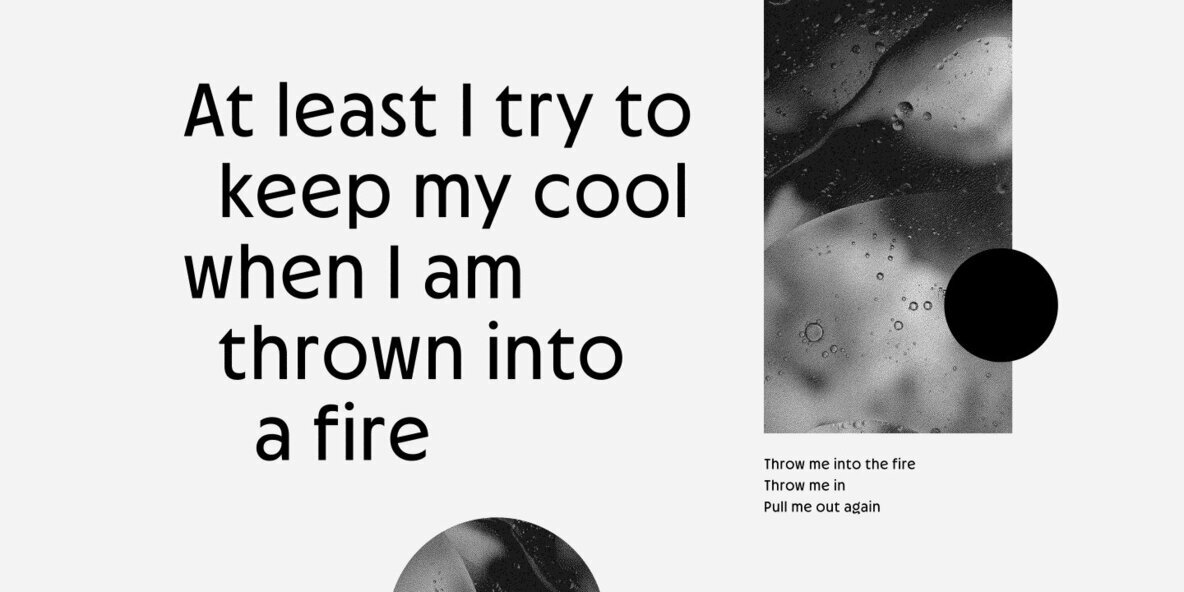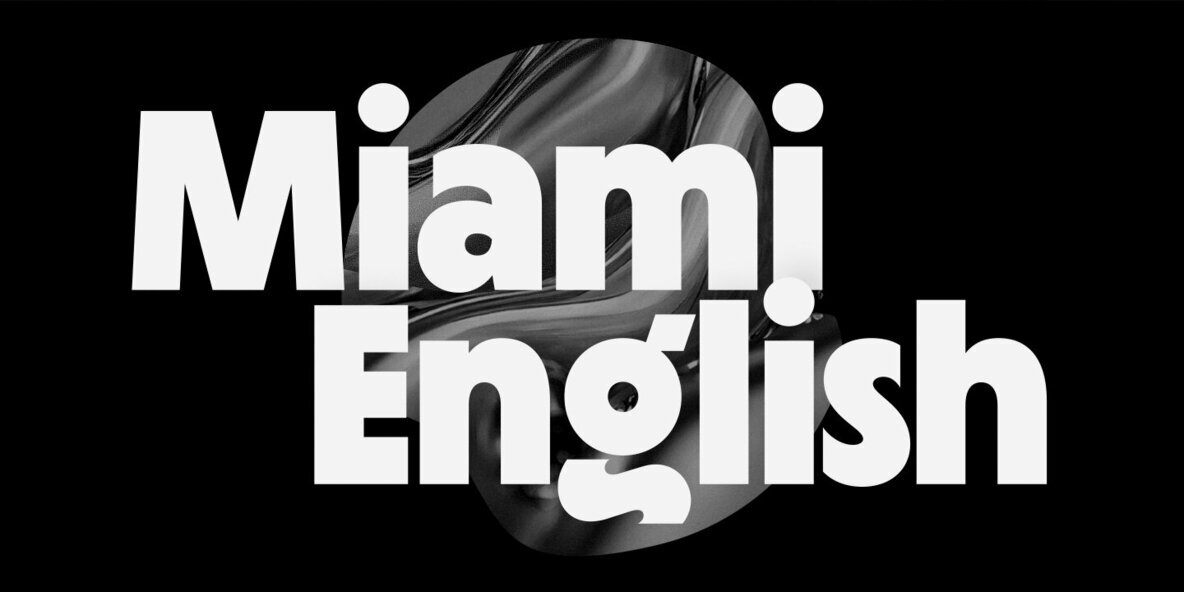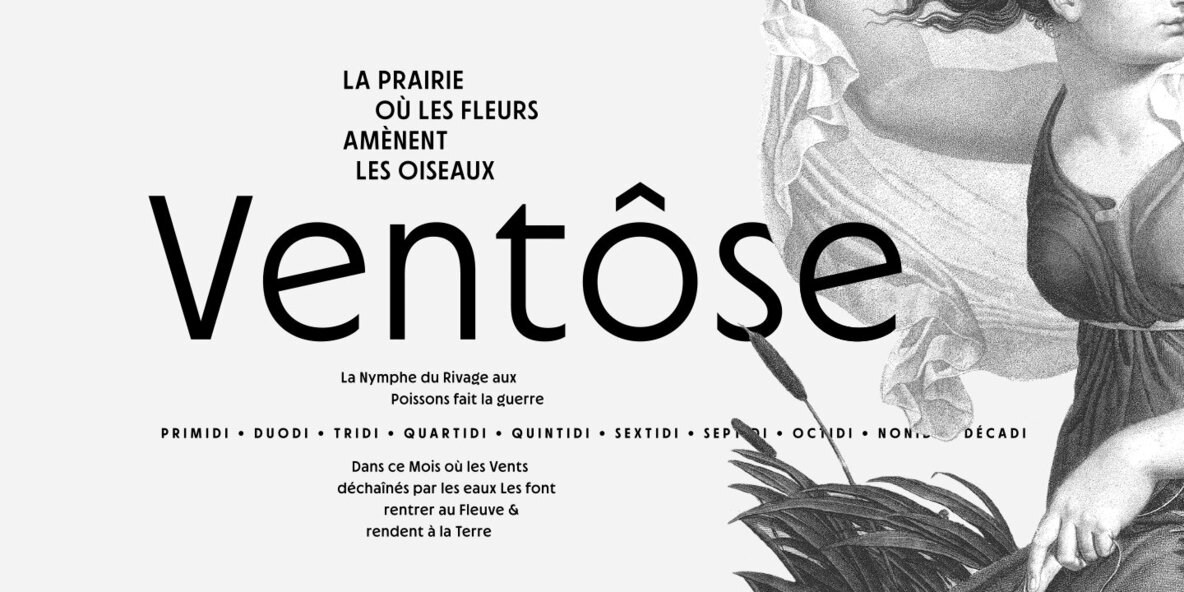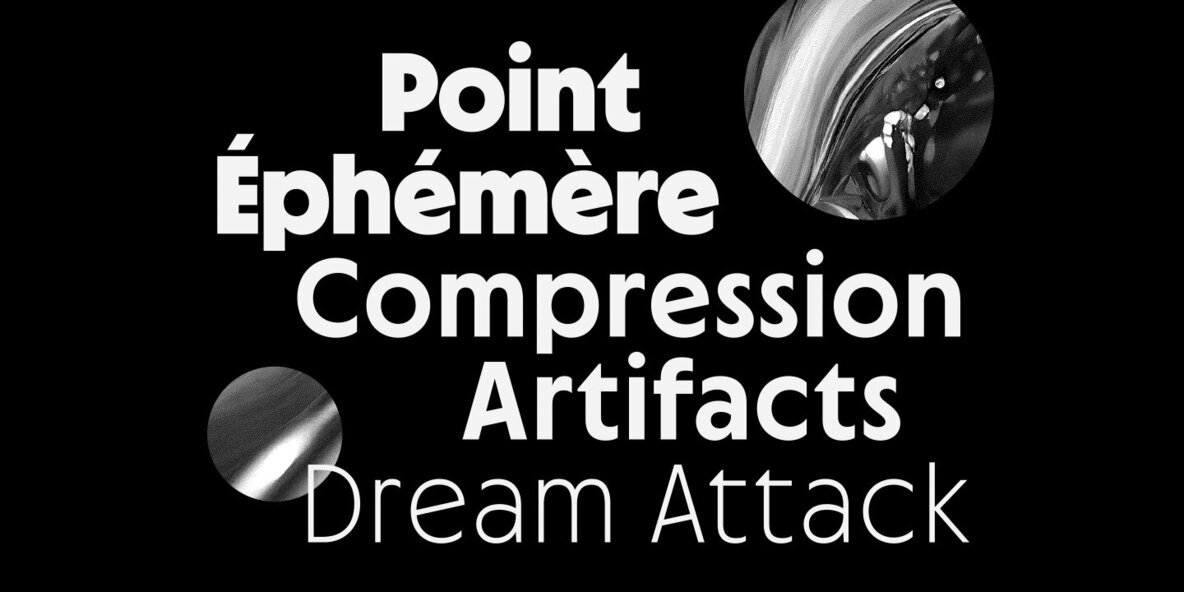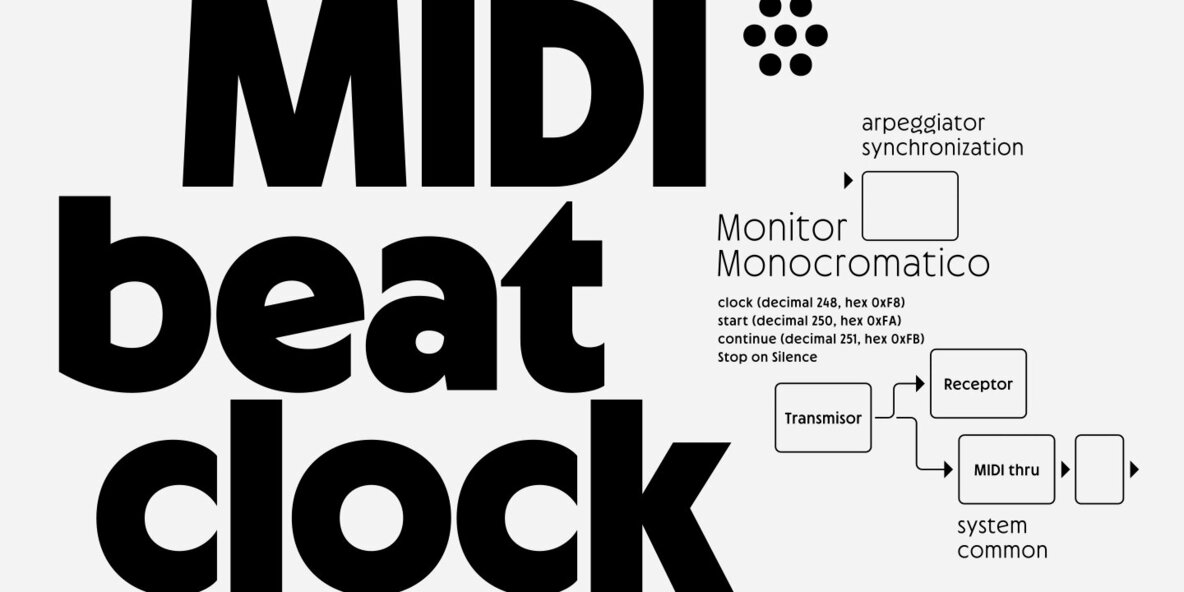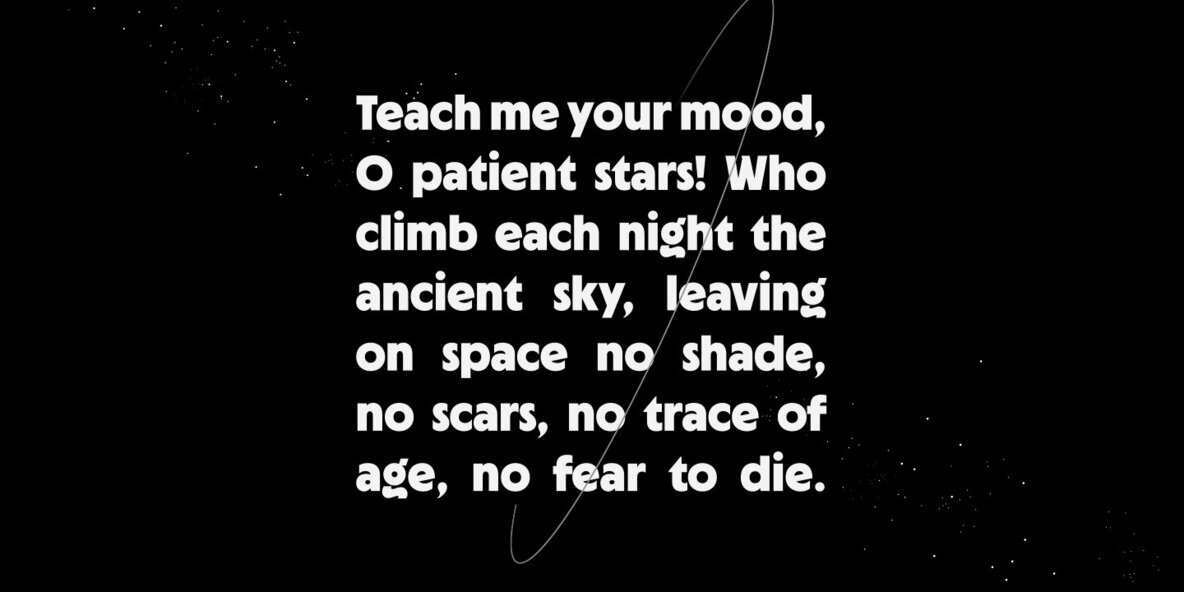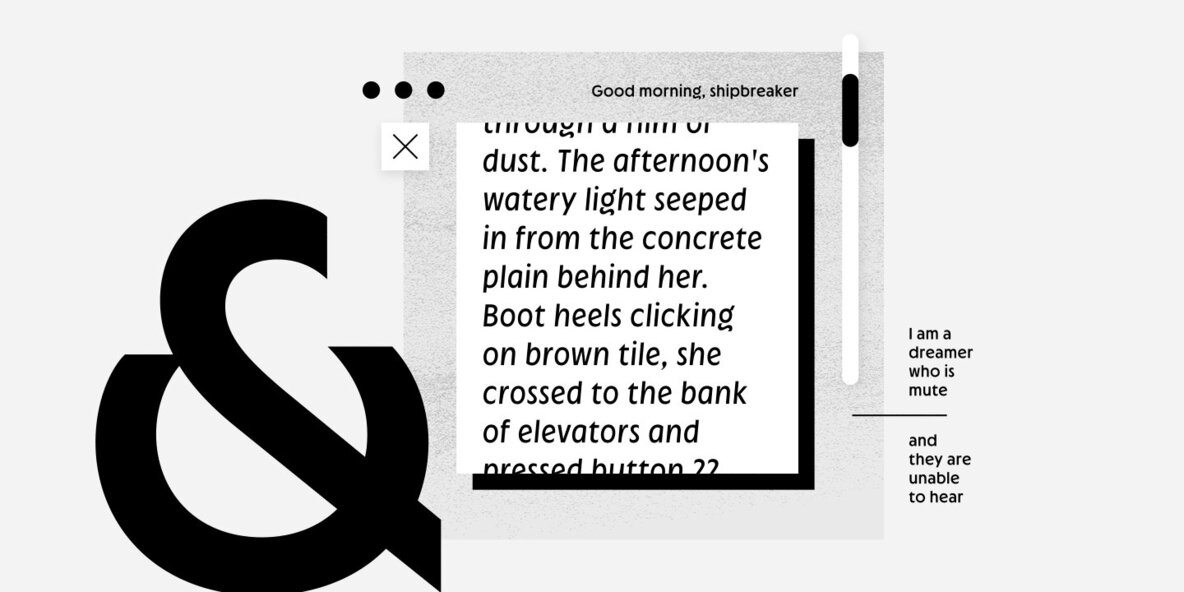
Cygnet CF Font
Cygnet CF charms with classic warmth and curious verve. An absurdly generous x-height makes this surprisingly readable and versatile display typeface perfect for headlines, captions, logos, and more. Nine weights plus italics grant a wide range of applications and moods, from sweet and elegant thins to intense and playful bolds.
- Nine weights with italics
- Extensive Latin script support for multiple languages
- OpenType features including alternates